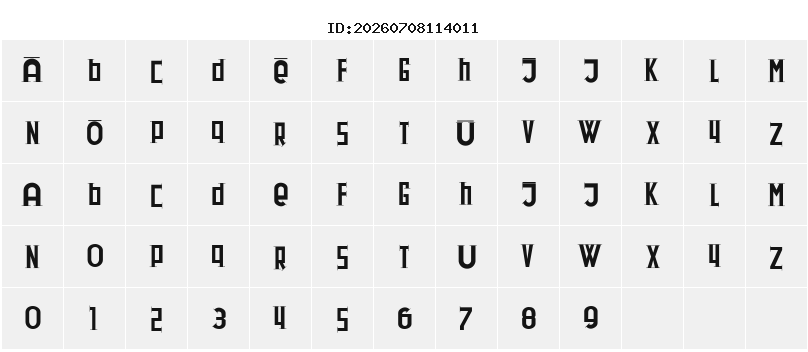
DadaDaSerif Preview
• Font Name: DadaDaSerif
• Font ID: DadaDaSerif
• Full Font Name: DadaDaSerif
• Version: 1.0 2003-03-27
• PostScript Name: DadaDaSerif
• Character Count: 146
• Copyright: © MKlein. 11.92 + 3.03
About DadaDaSerif.ttf
DadaDaSerif.ttf is a modern, elegant sans-serif font designed for ultimate readability and visual harmony. Perfect for branding, headlines, web design, and print materials.